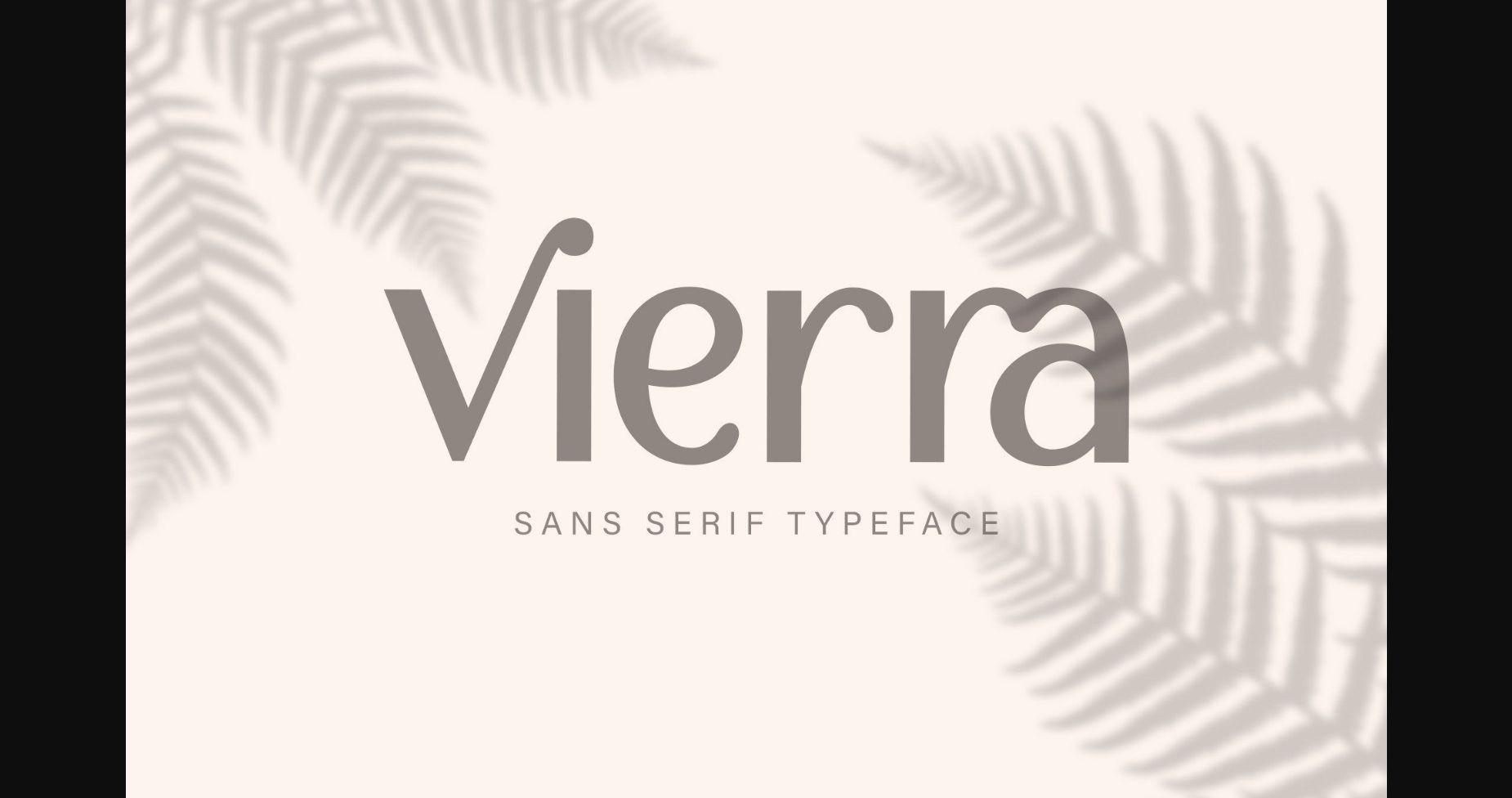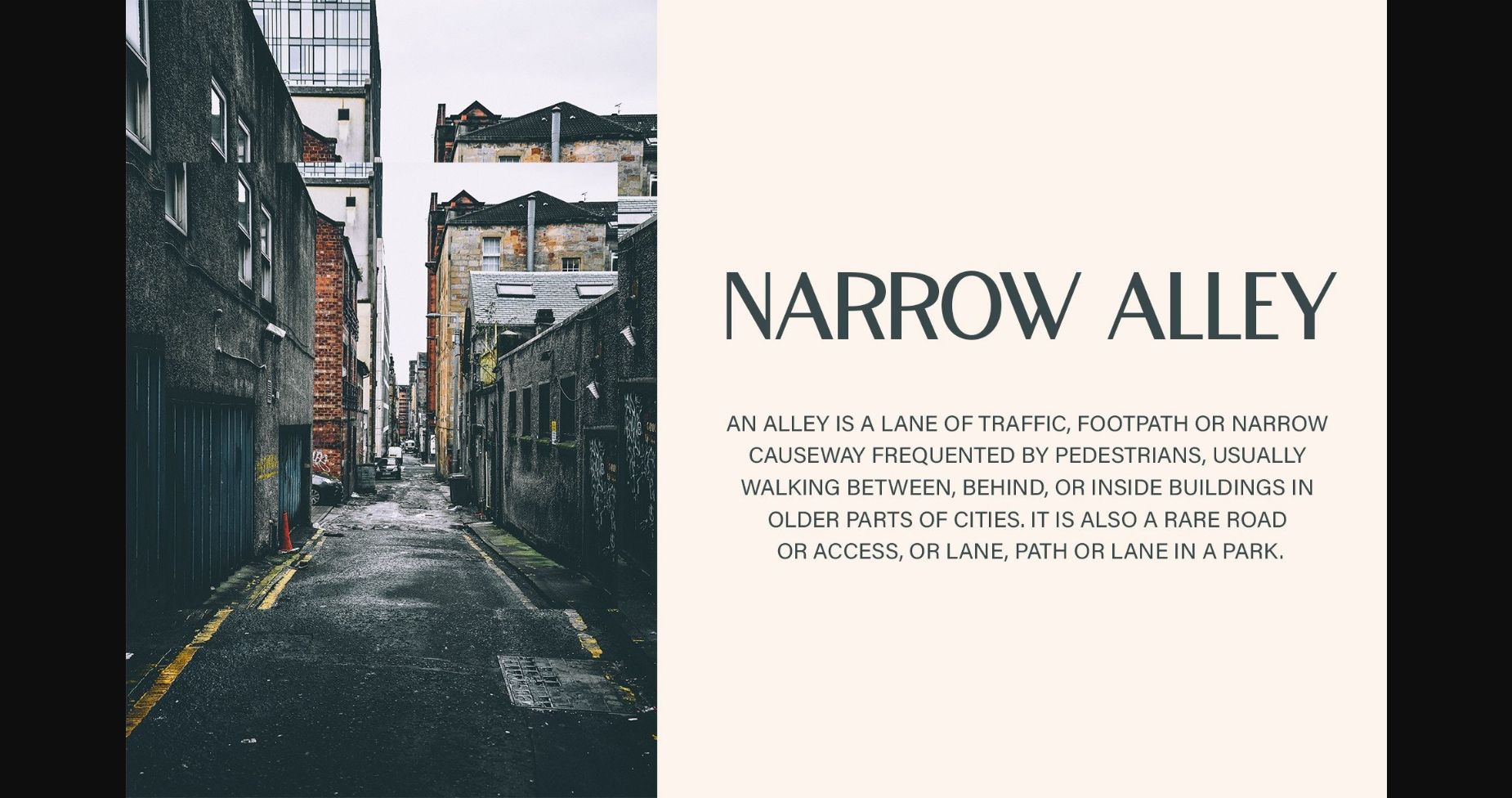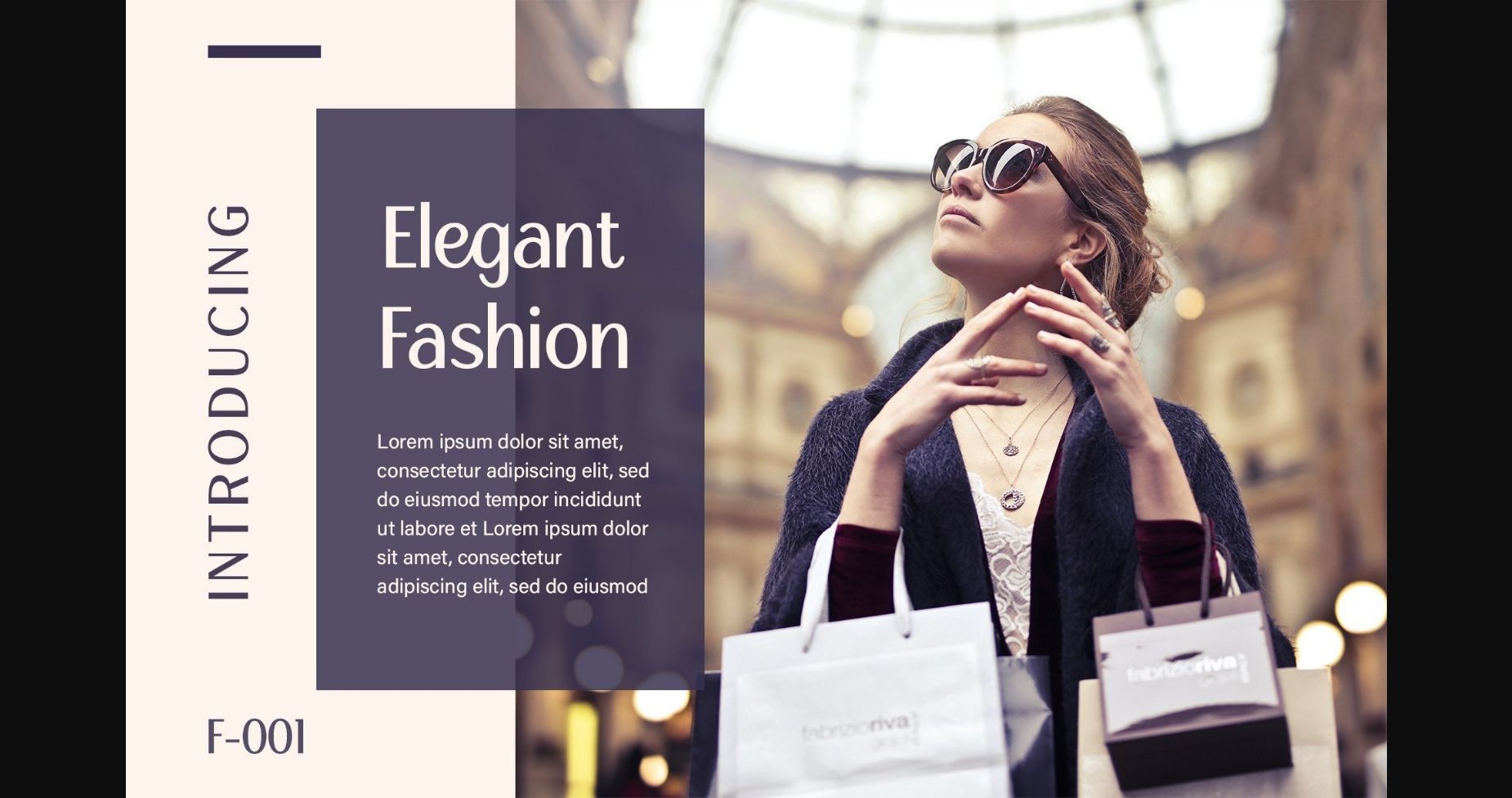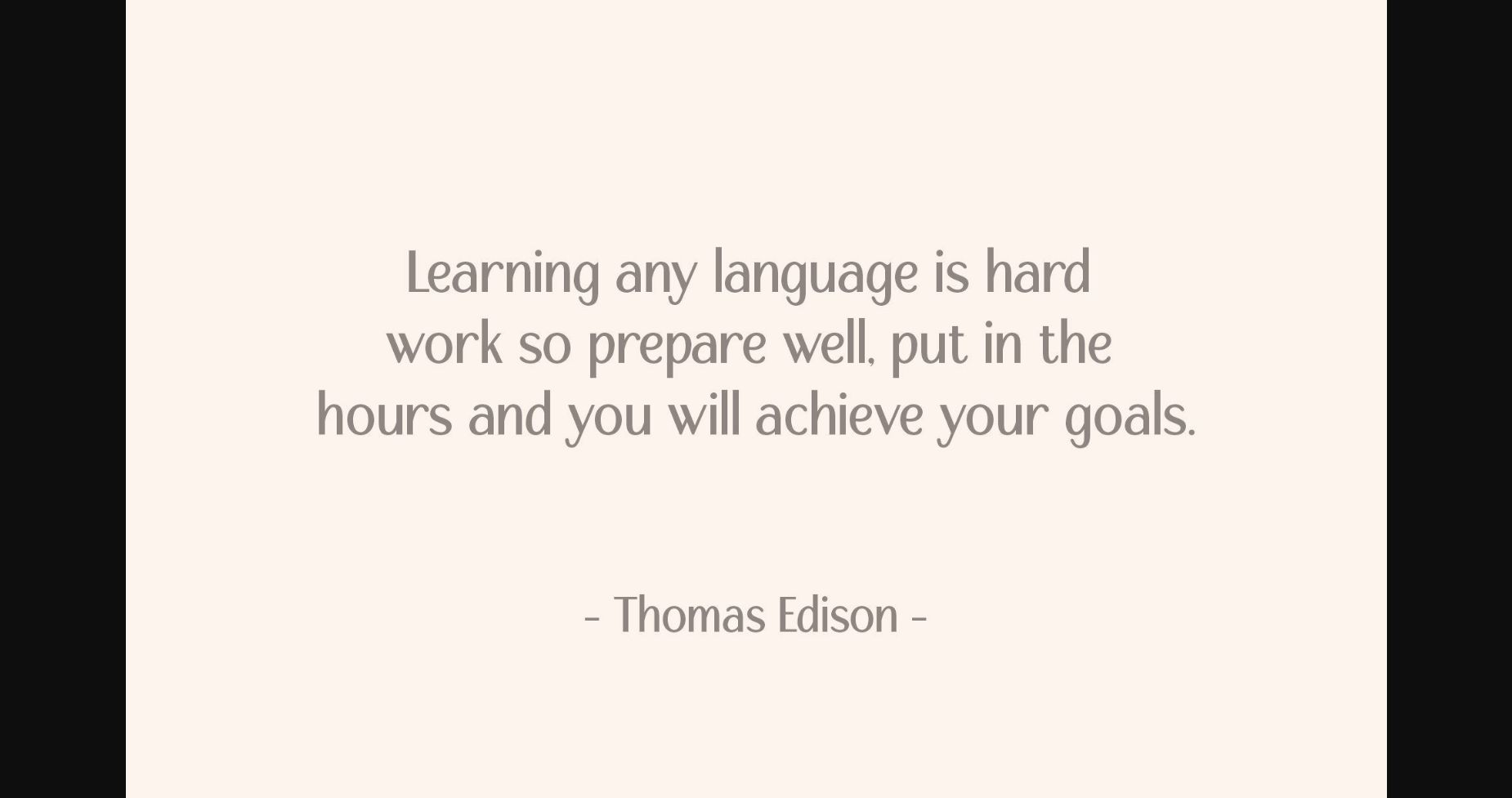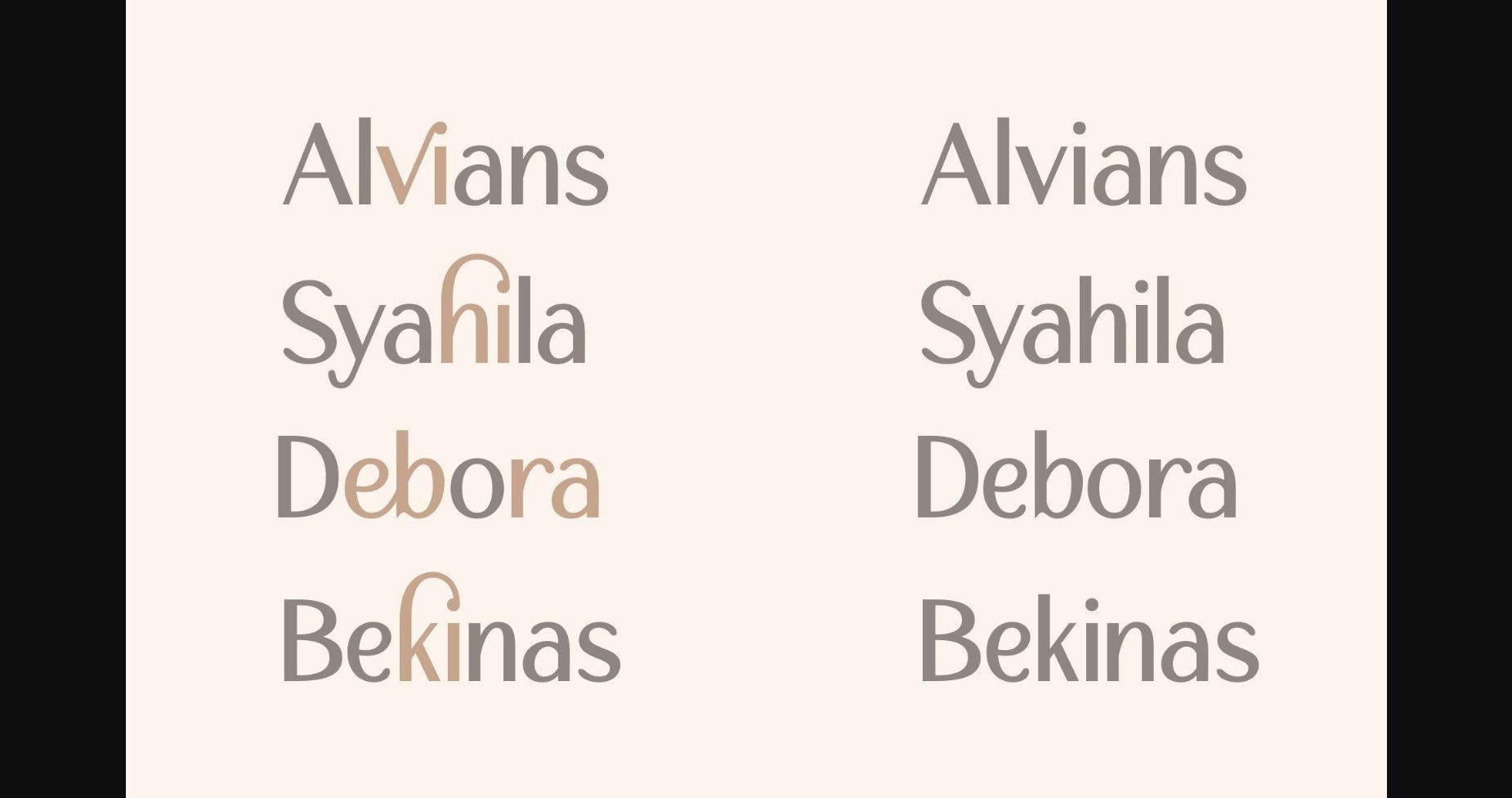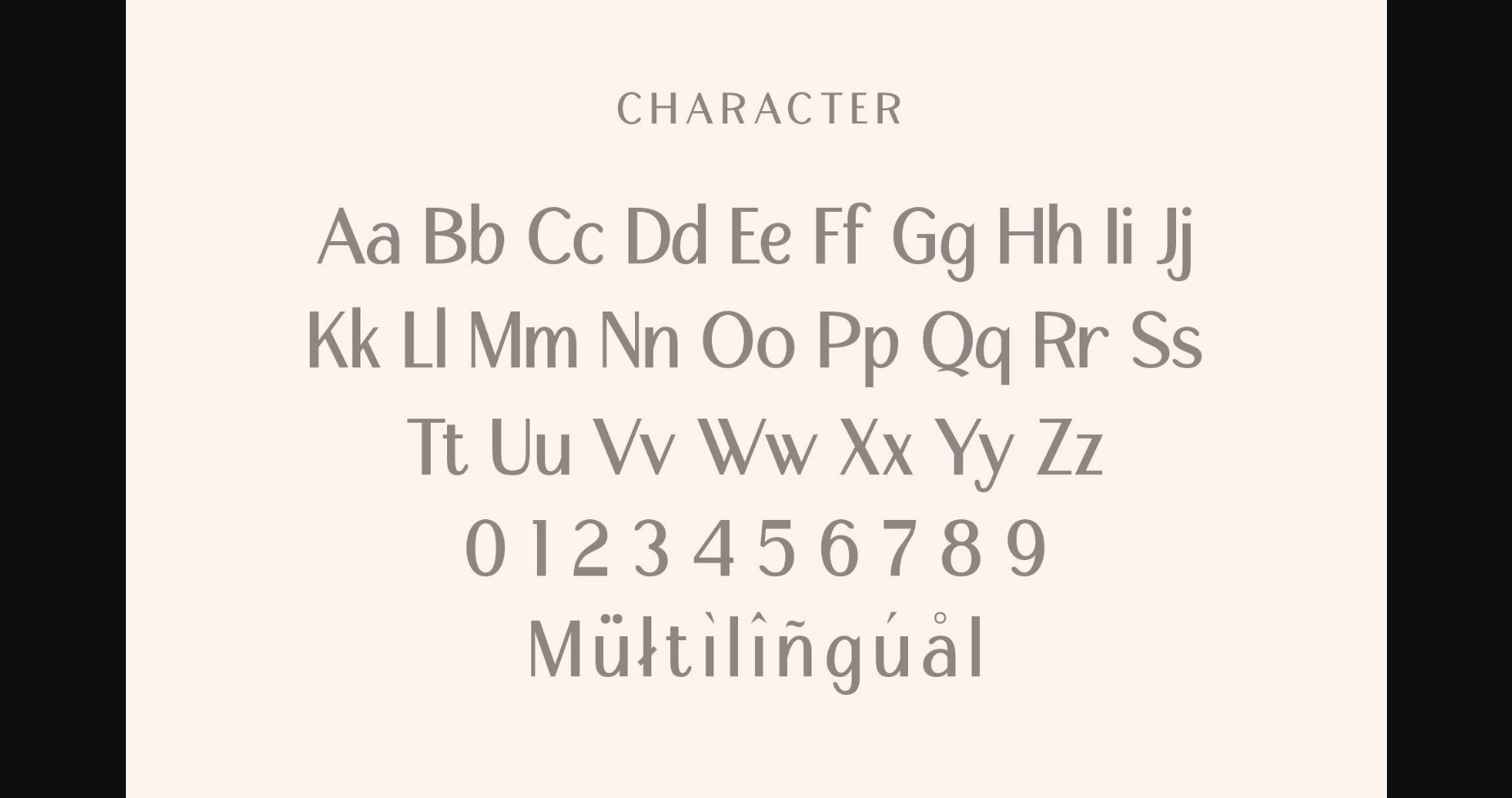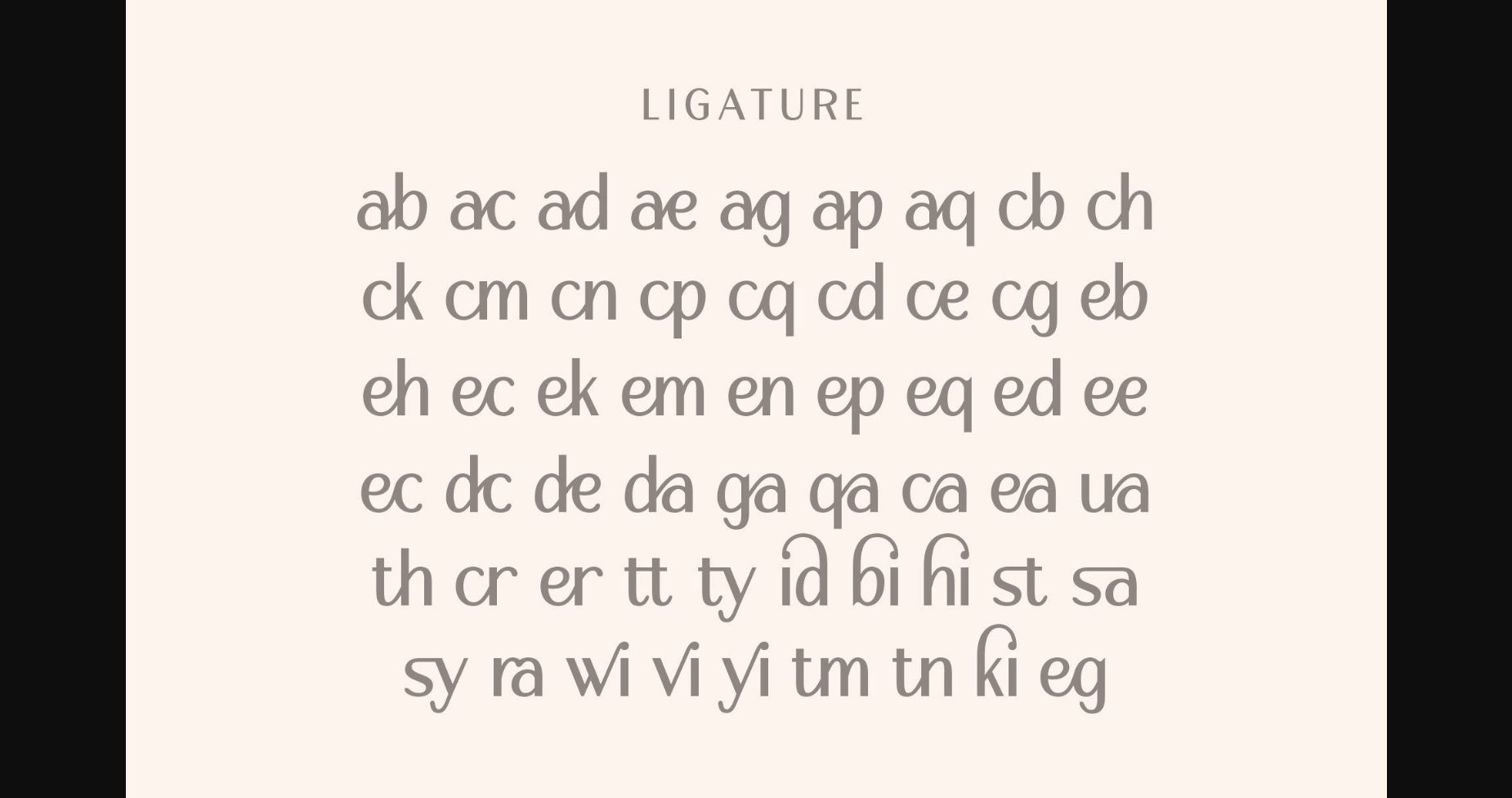
Vierra Font
About Vierra Font
Vierra is an elegant and stylish sans serif font. It will add a luxury spark to any design project that you wish to create! This font is PUA encoded which means you can access all of the amazing glyphs and ligatures with ease!